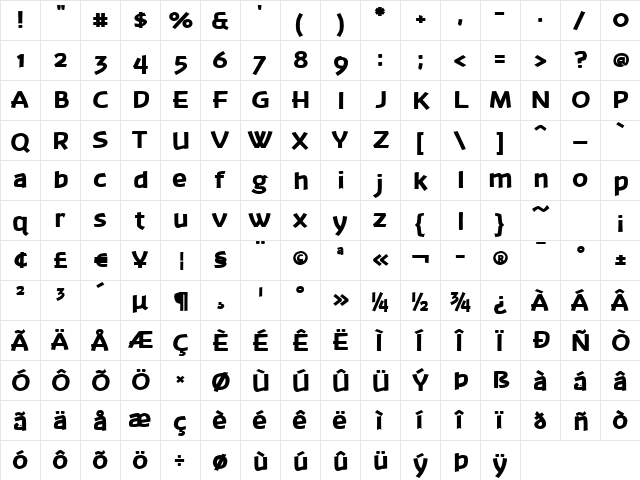
Banksia Black
Design Context for Banksia Typeface
Banksia offers clean, dependable letterforms without strong stylistic allegiance, making it a practical choice for designers who need flexibility.